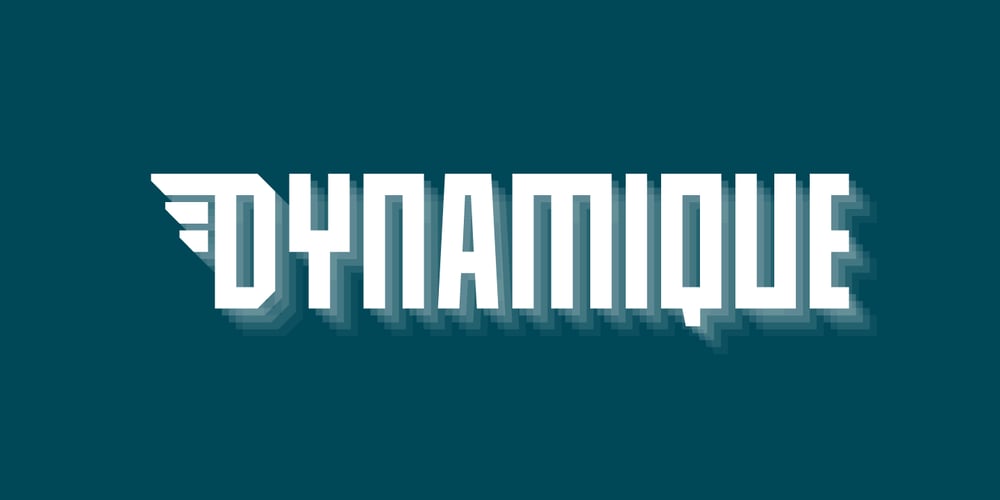
Dynamique Font Family was designed by Jakob Fischer and published by PizzaDude.dk. Dynamique contains 2 styles and family package options. I wouldn’t recommend that you use this font for massive text, or text written in CAPS … but then again, go ahead and try – I even kerned all the capital letters … just in case that you would do something so crazy! 🙂 Dynamique is a kind of a “straight out of the highway” grid-font. But then again, not … if you use the lowercase alone, you have this almost monospaced font – try starting every word with a capital letter, and let it end with the alternate ligature, your words suddenly got even more power! If you want to go lightspeed – then use the same technique, but only with the italic version!